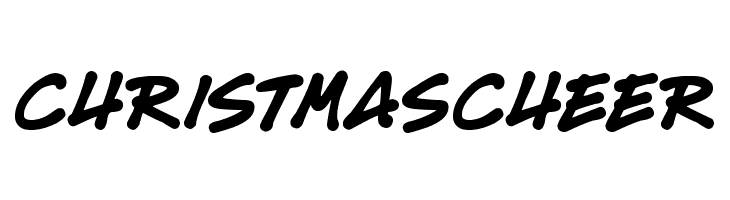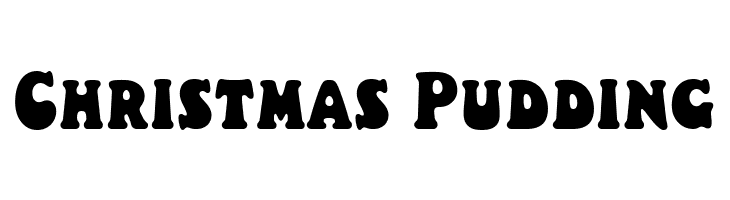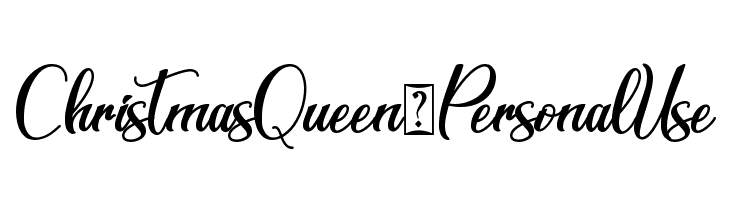
( Fonts by Andi Moz )
A playful and whimsical font with tall, narrow characters and a mix of thick and thin strokes.
( Fonts by DN Creative )
Playful handwritten font with rounded edges.
( Fonts by Annisa Afni )
A playful, bold, and hand-drawn style font with a whimsical and energetic appearance.
A playful, casual handwritten font with smooth, flowing curves.
A playful, bold handwritten font with rounded, smooth characters.
( Fonts by VinType )
A playful, bold font with a whimsical, hand-drawn style.
( Fonts by Khurasan )
A playful, bold font with rounded edges and a bubbly appearance.
( Alexander Kominek - fontstruct.fontshop.com/fontstructors/lexkominek )
A bold, geometric font with a stacked, three-dimensional appearance.